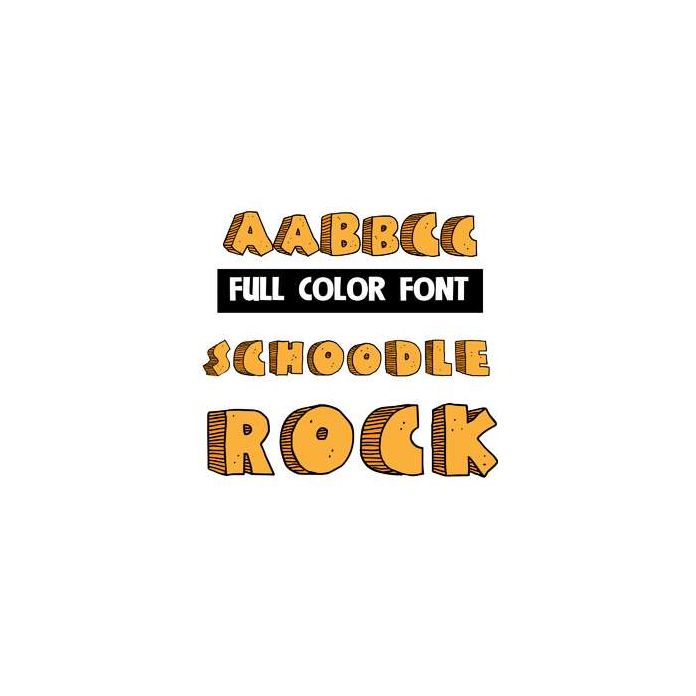
This full-color font features yellow, blocky, rock-like, doodled lettering. This font works best for titles, displays, posters and more. Please note color fonts will show as black in non compatible programs. This font type is compatible with Silhouette Studio.